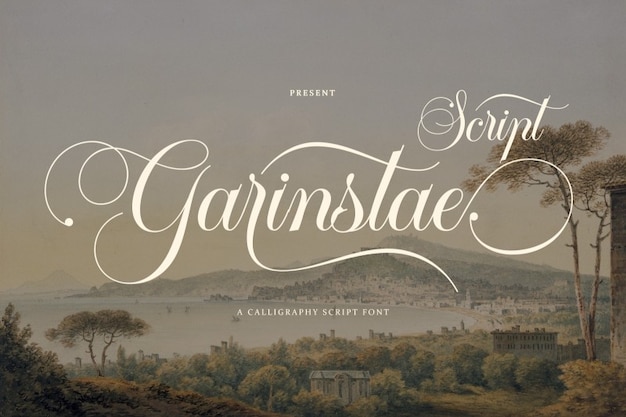
Garinstae Script Font
"Garinstae Script" is a striking font that seamlessly merges Chicano Old English with tribal tattoo artistry and classic calligraphy. Its flowing swashes and intricate details create a powerful visual impact. Perfect for designs that seek a fusion of tradition, culture, and edgy elegance, "Garinstae Script" exudes a timeless, rebellious spirit.